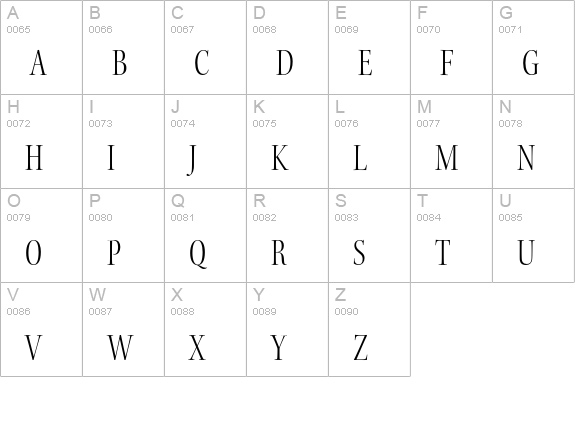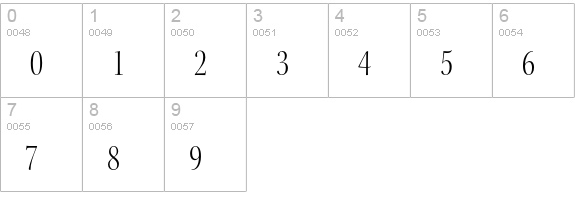
Kepler Std Light Condensed Display is a refined, elegant, condensed-width variant in the Kepler typeface family \xE2\x80\x94 well suited to elegant body text, refined sub-headings, and luxury branding.
Kepler Std Light Condensed Display font is a sleek and modern typeface that exudes elegance and sophistication. Its condensed design allows for maximum impact, making it perfect for headings, titles, and logo designs. The clean and minimalist letterforms give this font a timeless appeal, making it suitable for a wide range of projects. With its light weight, Kepler Std Light Condensed Display font adds a touch of delicacy to any design. The slim letterforms create a sense of elegance and refinement, making it ideal for luxury brands, fashion magazines, and high-end websites. The tight spacing ensures that each character is perfectly balanced, creating a harmonious and visually pleasing layout. One of the greatest benefits of Kepler Std Light Condensed Display font is that it is freely available to download at FontsMarket.com. This means that designers and creatives can access this beautiful font without any cost, allowing for more flexibility in their projects. Whether you're a professional designer or a hobbyist, this font is a valuable addition to your toolkit. The versatility of Kepler Std Light Condensed Display font is another reason to love it. It can be paired with other fonts to create interesting and dynamic typography combinations. From classic serif fonts to modern sans-serifs, this font seamlessly blends with a variety of styles, giving you endless possibilities for your designs. In conclusion, Kepler Std Light Condensed Display font is a stunning typeface that combines elegance, modernity, and versatility. Its free availability at FontsMarket.com allows designers to access this font without any financial constraints. Whether you're working on a branding project, editorial design, or web design, this font is sure to elevate your work and leave a lasting impression.